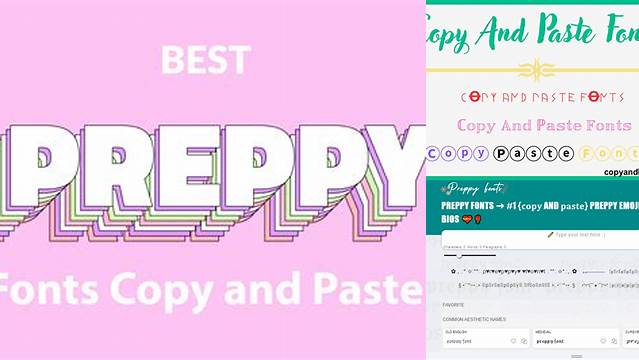
Stylish Preppy Fonts: Copy & Paste Names For Free!
Hey guys! Ever wanted to give your online presence that chic, preppy vibe? One of the easiest ways to do that is by using preppy fonts! Whether it's for your Instagram bio, a cute nickname, or even a personalized gift, the right font can make all the difference. This article will dive deep into the world of preppy fonts, showing you how to copy and paste names and other text with a touch of elegance and style. We'll explore various font styles, tools, and tips to help you achieve that perfect preppy aesthetic. So, let's get started and transform your text into something fabulous! This is especially useful if you are trying to get that classic, sophisticated look that is currently trending. Using the right font is a game-changer when you're aiming for a specific aesthetic, and preppy is all about clean lines, elegance, and a touch of timeless charm. We will also look at how different fonts evoke different emotions and how to choose the font that best represents you or your brand. So, buckle up and let's embark on this stylish journey together!
What are Preppy Fonts?
Preppy fonts are characterized by their classic, clean, and sophisticated appearance. Think timeless elegance and a touch of academic charm. They often feature serifs or clean sans-serif designs that evoke a sense of tradition and refinement. Preppy fonts aren't just about looking good; they're about conveying a specific message of sophistication and style. When you use a preppy font, you're signaling a certain level of attention to detail and a commitment to classic aesthetics. This style is reminiscent of boarding schools, Ivy League universities, and a generally polished, put-together look. These fonts are versatile and can be used in a variety of contexts, from personal branding to event invitations. The essence of a preppy font lies in its ability to blend formality with approachability, making it a perfect choice for anyone looking to add a touch of class to their textual content. For example, a well-chosen serif font can elevate a simple name into a stylish statement, perfect for social media bios or personalized stationery. Whether you're designing a logo or just want to add flair to your everyday messages, understanding what makes a font “preppy” is the first step in achieving the desired effect. The clean lines and classic appeal of these fonts make them a timeless choice for any project.
Popular Preppy Font Styles
When it comes to popular preppy font styles, several stand out. Serif fonts like Times New Roman, Garamond, and Georgia are classics that exude sophistication. These fonts have small decorative strokes at the end of each letter, giving them a formal and traditional look. On the other hand, clean sans-serif fonts such as Helvetica, Arial, and Century Gothic offer a more modern preppy feel, with their simple, unadorned letterforms. Script fonts, especially those with elegant flourishes, can also be preppy when used sparingly and in the right context. Imagine a beautifully scripted name on a wedding invitation or a personalized monogram – that's the power of a preppy script font. Each style brings its unique flavor to the table. Serif fonts are great for conveying a sense of history and tradition, making them ideal for formal occasions and professional settings. Sans-serif fonts provide a cleaner, more contemporary look, perfect for websites, social media, and modern branding. Script fonts, with their flowing lines and calligraphic appeal, add a touch of personality and artistry. Understanding the nuances of each style helps you choose the perfect font for your specific needs. The versatility of preppy fonts means you can adapt them to fit various situations, from casual to formal, ensuring your text always makes the right impression. Knowing the distinctions between these styles will give you a head start in selecting the most appropriate typeface for your preppy-inspired projects.
Tools for Copying and Pasting Preppy Fonts
There are several handy tools available online that allow you to copy and paste preppy fonts easily. Websites like LingoJam, YayText, and FontGet offer a variety of font styles that you can generate and then simply copy and paste into your desired platform. These tools work by using Unicode characters to create different font styles, so you don't need to install any additional software. These tools are incredibly user-friendly, making it a breeze to experiment with different fonts and find the perfect match for your style. Using these resources, you can effortlessly transform plain text into something visually appealing. These tools open up a world of possibilities for customizing your social media profiles, creating eye-catching designs, and adding a unique touch to your digital communications. Imagine typing your name, choosing a font, and instantly seeing it rendered in a stylish, preppy typeface. The convenience of these tools makes them essential for anyone looking to elevate their text aesthetics. Whether you're a social media enthusiast, a graphic designer, or just someone who loves beautiful fonts, these platforms offer a quick and easy way to access a vast library of stylistic options. The best part is that most of these tools are free, providing a cost-effective solution for all your font-related needs. With just a few clicks, you can have access to a stunning array of preppy fonts to enhance your projects and communications.
How to Use Preppy Fonts on Social Media
Social media is a fantastic platform to showcase your preppy style using unique fonts. Platforms like Instagram, Twitter, and Facebook allow you to use copied and pasted fonts in your bio, captions, and posts. To do this, simply generate your desired text using a font generator, copy it, and then paste it into the social media platform. Remember, consistency is key when it comes to branding. Using a consistent font style across your social media profiles helps create a cohesive and professional look. It allows you to build a recognizable brand and makes your profile stand out. Think of your social media as your personal online magazine – the fonts you choose are like the typography in a high-end fashion editorial. Using preppy fonts on social media isn't just about aesthetics; it's about building a brand and telling a story. By carefully selecting fonts that align with your personality and style, you can create a lasting impression on your followers. For instance, if you're running a business, using a sophisticated font in your logo and branding materials can convey professionalism and attention to detail. If you're an individual user, a well-chosen font can enhance your personal brand and make your posts more engaging. It’s a simple yet powerful way to elevate your social media presence and communicate your unique style to the world. Experimenting with different fonts and seeing how they look in various contexts can be a fun and creative process, helping you discover the perfect font for your online persona.
Creating Preppy Names with Stylish Fonts
Creating a preppy name involves more than just choosing a font; it's about selecting a style that reflects your personality and adds a touch of elegance. Experiment with different fonts to see what resonates with you. For instance, a classic script font can make a name feel sophisticated and timeless, while a clean serif font can convey a sense of understated elegance. Preppy names often have a timeless quality, evoking a sense of tradition and refinement. Consider adding subtle embellishments, such as a small heart or star, to further personalize your preppy name. These little details can make a big difference, adding a touch of whimsy and personality. Monograms are also a classic preppy touch, offering a stylish and sophisticated way to display initials. Think of your name as a piece of art – the font you choose is like the frame that completes the picture. Whether you’re creating a name for a social media profile, a personal project, or a gift, the right font can transform it into something special. A well-crafted preppy name can serve as a statement of style and individuality. The key is to find a balance between elegance and personal expression. The process of creating a preppy name should be enjoyable, allowing you to explore different fonts and styles until you discover the perfect match. Remember, your name is an essential part of your identity, and choosing a font that reflects your style can help you make a lasting impression.
Preppy Fonts for Different Platforms
The platform you're using can influence the type of preppy font that looks best. For instance, Instagram bios often look great with script or decorative fonts, while captions might benefit from a more readable serif or sans-serif style. Websites and blogs typically use clean, professional fonts for body text to ensure readability, but headings can be more stylized. Understanding the specific requirements and aesthetics of each platform can help you make informed font choices. Different platforms have varying design sensibilities, and the fonts you use should complement these. On visual platforms like Instagram and Pinterest, fonts are an integral part of your brand's visual identity. A stylish font can capture attention and communicate your aesthetic effectively. For professional platforms like LinkedIn, it's best to stick with classic, clean fonts that convey professionalism and credibility. The key is to consider the context and audience of each platform. A font that works perfectly on a personal blog might not be appropriate for a formal presentation. By tailoring your font choices to the platform, you can ensure that your message is always well-received and effectively communicated. Think of each platform as a different stage, and your font choices are the costumes that help you play the part. Being mindful of these nuances allows you to present your content in the best possible light and maintain a consistent, polished brand across all your online activities.
Font Pairing Tips for a Preppy Look
Font pairing is crucial for achieving a cohesive and visually appealing preppy look. A common strategy is to pair a serif font with a sans-serif font. For example, using a Garamond for headings and an Arial for body text can create a balanced and elegant design. Another tip is to limit your font choices to two or three fonts to avoid a cluttered appearance. Font pairing is an art, and mastering it can significantly elevate your design. The goal is to create harmony and visual interest without overwhelming the reader. Think of it as putting together a stylish outfit – each piece should complement the others, creating a polished and cohesive look. When pairing fonts, consider the contrast and similarity between them. A strong contrast can add visual drama, while subtle similarities create a sense of unity. For instance, pairing a bold serif with a light sans-serif can create a striking visual impact. Alternatively, using two sans-serif fonts with slightly different weights and styles can achieve a more subtle and sophisticated effect. Experimenting with different combinations is key to finding the perfect pairing for your project. Remember, the fonts you choose should work together to enhance your message, not distract from it. A well-chosen font pairing can make your text more readable, engaging, and visually appealing, contributing to a polished and professional overall design.
Generating Preppy Names with Font Generators
Font generators are a fantastic resource for generating preppy names with unique fonts. These tools offer a wide range of font styles that you can easily copy and paste. Simply type your name into the generator, browse the available fonts, and select the one that best suits your style. Most font generators also allow you to preview the text in different sizes and styles, making it easier to find the perfect fit. Using font generators can save you time and effort, especially if you're not familiar with graphic design software. These tools provide a user-friendly way to experiment with different fonts and see how your name looks in various styles. Whether you're creating a name for a social media profile, a personal project, or a special occasion, font generators offer a convenient solution. The ability to preview fonts in real-time allows you to make informed decisions and ensure that your chosen font aligns with your overall aesthetic. Think of font generators as your personal typography playground, where you can explore endless possibilities and discover hidden gems. With just a few clicks, you can transform a simple name into a stylish statement piece. The best part is that many font generators are free, making them accessible to anyone looking to elevate their text aesthetics. By leveraging these tools, you can effortlessly create preppy names that stand out and reflect your unique style.
Copy and Paste Font Tips for Preppy Text
When copying and pasting preppy fonts, there are a few tips to keep in mind. First, ensure that the platform you're pasting into supports Unicode characters, as this is how most font generators create their styles. Some platforms may not display the fonts correctly if they don't support Unicode. Another tip is to test the font in different sizes to ensure readability. A font that looks great in a large size might be difficult to read when it's smaller. Always double-check your text after pasting to ensure that everything looks as intended. The copy and paste process is straightforward, but these small considerations can make a big difference in the final result. By ensuring compatibility and readability, you can avoid common pitfalls and create text that looks polished and professional. Think of it as the final touches on a masterpiece – taking the time to refine the details can elevate your work from good to great. Remember, the goal is to create text that is not only visually appealing but also easy to read and understand. This is especially important in professional settings, where clear communication is essential. By following these tips, you can confidently copy and paste preppy fonts, knowing that your text will look its best on any platform. These simple steps ensure that your preppy style shines through in every message you send.
Preppy Fonts for Logos and Branding
Choosing the right font for your logo and branding is crucial for conveying the right message. Preppy fonts can add a touch of sophistication and elegance to your brand identity. Serif fonts like Garamond and Times New Roman are classic choices for logos, conveying a sense of tradition and reliability. Sans-serif fonts, such as Helvetica and Century Gothic, offer a more modern and clean look, perfect for brands that want to appear contemporary and approachable. Preppy fonts in branding create a lasting impression, making your brand memorable and recognizable. Think of your logo as the visual cornerstone of your brand – the font you choose sets the tone and communicates your values. A well-chosen font can evoke emotions, convey your brand’s personality, and create a connection with your target audience. The key is to select a font that aligns with your brand's identity and resonates with your ideal customers. Whether you’re starting a new business or rebranding an existing one, font selection should be a top priority. The fonts you use in your logo and marketing materials will become synonymous with your brand, so it’s essential to make a thoughtful choice. By carefully considering the nuances of different fonts and how they reflect your brand’s message, you can create a visual identity that stands the test of time. This attention to detail can significantly enhance your brand’s appeal and credibility, helping you establish a strong presence in the marketplace.
Monogram Fonts for Preppy Style
Monograms are a classic element of preppy style, and choosing the right font is essential for creating a sophisticated monogram. Script fonts with elegant flourishes are a popular choice for monograms, adding a touch of luxury and personalization. Serif fonts can also work well, especially for a more traditional and understated look. There are numerous online tools and resources available that allow you to generate monogram designs using various fonts. Monogram fonts add a personal touch to stationary, gifts, and even social media profiles, offering a stylish and timeless way to display initials. Think of a monogram as a personal signature – the font you choose should reflect your individual style and taste. A well-designed monogram can elevate everyday items into something special, adding a touch of sophistication and elegance. Monograms are versatile and can be used in a variety of contexts, from formal invitations to casual accessories. They are a classic symbol of personalization and attention to detail. Whether you’re creating a monogram for yourself or as a gift, the right font can make all the difference. The goal is to create a monogram that is both visually appealing and meaningful, reflecting the personality and style of the individual it represents. By carefully considering the font, size, and placement of your monogram, you can create a timeless and elegant design that will be cherished for years to come. This classic preppy detail can enhance anything from personal stationery to branding materials.
Preppy Fonts in Invitations and Stationery
When it comes to invitations and stationery, preppy fonts can add a touch of elegance and sophistication. Whether you're designing wedding invitations, thank-you notes, or personalized stationery, the right font can set the tone for the occasion. Serif fonts like Garamond and Times New Roman are classic choices for formal events, conveying a sense of tradition and refinement. Script fonts, especially those with elegant flourishes, can also be used sparingly for a more decorative touch. Consider using a combination of fonts to create visual interest, such as pairing a serif font for the main text with a script font for headings or names. Preppy fonts in invitations and stationery evoke a sense of elegance, making your message memorable and impactful. Think of your invitations and stationery as an extension of your personal style – the fonts you choose should reflect your taste and the formality of the occasion. A well-designed invitation can create a lasting impression, setting the stage for a special event. The key is to select fonts that are not only visually appealing but also easy to read. A cluttered or illegible font can detract from your message, so it’s essential to prioritize clarity. By carefully considering the font, layout, and overall design, you can create invitations and stationery that are both beautiful and functional. This attention to detail will help you make a positive impression and ensure that your message is well-received.
Best Preppy Fonts for Online Use
For online use, the best preppy fonts are those that are both stylish and readable on screens. Sans-serif fonts like Helvetica, Arial, and Open Sans are popular choices for websites and blogs, as they offer a clean and modern look that is easy on the eyes. Serif fonts like Georgia and Times New Roman can also work well for body text, especially when paired with a sans-serif font for headings. When choosing fonts for online use, it's important to consider factors like legibility, screen resolution, and font loading speed. The goal is to select fonts that enhance the user experience without slowing down your website or blog. Best preppy fonts for online readability create a seamless reading experience, ensuring that your content is both visually appealing and easy to consume. Think of your website or blog as your online storefront – the fonts you use are like the signage that attracts and guides visitors. A well-chosen font can improve the overall aesthetic of your site, making it more engaging and inviting. The key is to prioritize readability and ensure that your fonts are consistent across all devices and browsers. This attention to detail can significantly enhance your online presence, helping you create a positive impression on your audience. By carefully considering the nuances of different fonts and how they perform online, you can create a website or blog that is both beautiful and user-friendly.
Preppy Fonts and Color Combinations
The colors you use alongside your preppy fonts can significantly impact the overall aesthetic. Classic color combinations like navy and white, pink and green, and pastels are often associated with preppy style. When choosing colors, consider the font's weight and style. A bold font might pair well with a soft color palette, while a delicate script font might look best against a darker background. Preppy fonts and complementary colors create a cohesive visual impact, enhancing the elegance and sophistication of your designs. Think of your color palette as the backdrop for your fonts – the colors you choose should complement the fonts and enhance their impact. A well-chosen color combination can evoke emotions, convey your message effectively, and create a lasting impression. The key is to select colors that align with your overall aesthetic and resonate with your target audience. Experimenting with different color combinations can help you discover the perfect palette for your project. Remember, the goal is to create a visually harmonious design that is both appealing and effective. By carefully considering the interplay between fonts and colors, you can create designs that are truly memorable and impactful. This attention to detail will help you communicate your message effectively and make a positive impression on your audience.
Preppy Fonts for Business Cards
Business cards are a crucial part of professional branding, and choosing the right font is essential for making a positive impression. Preppy fonts can add a touch of sophistication and elegance to your business cards, conveying professionalism and attention to detail. Serif fonts like Garamond and Times New Roman are classic choices, while sans-serif fonts like Helvetica and Century Gothic offer a more modern look. Consider using a font that is both stylish and readable, as clarity is crucial for business cards. The goal is to create a business card that is visually appealing and conveys your brand's message effectively. Preppy fonts on business cards create a lasting impression, ensuring that your card stands out and reflects your professional style. Think of your business card as a miniature billboard – the fonts you choose should be eye-catching and easy to read. A well-designed business card can serve as a powerful marketing tool, helping you make connections and build relationships. The key is to select fonts that align with your brand's identity and resonate with your target audience. Keep your business card simple and uncluttered, focusing on essential information such as your name, title, contact details, and company logo. By carefully considering the font, layout, and overall design, you can create a business card that is both functional and stylish. This attention to detail will help you make a positive impression and ensure that your business card effectively represents your brand.
Creating Preppy Quotes with Fonts
Preppy fonts can transform ordinary quotes into stylish statements. Whether you're sharing inspirational messages on social media or creating personalized prints, the right font can elevate your quotes. Script fonts are ideal for adding a touch of elegance and personality, while serif fonts can convey a sense of tradition and sophistication. Consider using a combination of fonts to highlight different parts of the quote, such as a script font for the main text and a serif font for the attribution. The goal is to create a visually appealing quote that resonates with your audience. Preppy quotes with stylish fonts create a visual impact, making your message memorable and shareable. Think of your quotes as pieces of art – the fonts you choose are like the frame that completes the picture. A well-designed quote can inspire, motivate, and connect with others, making it a valuable tool for communication and self-expression. The key is to select fonts that complement the message and evoke the desired emotion. Experiment with different font styles, sizes, and colors to create a quote that is truly unique and impactful. By carefully considering the font, layout, and overall design, you can transform your quotes into visual masterpieces that leave a lasting impression.
Preppy Font Trends in 2024
Staying up-to-date with font trends can help you keep your designs fresh and modern. In 2024, we're seeing a resurgence of classic serif fonts paired with clean sans-serif fonts for a balanced and sophisticated look. Bold, statement fonts are also gaining popularity, especially for headings and logos. Monograms and script fonts continue to be a classic preppy staple, but they're being used in more creative and contemporary ways. Keeping an eye on these preppy font trends in 2024 ensures your designs remain stylish and relevant. Think of font trends as the fashion runways of the design world – staying informed can help you create designs that are both current and timeless. A well-chosen font can breathe new life into your projects, making them more engaging and visually appealing. The key is to experiment with different trends and incorporate them into your designs in a way that aligns with your personal style and brand identity. Don't be afraid to try new things, but always prioritize readability and clarity. By staying informed and adaptable, you can create designs that stand out from the crowd and make a lasting impression. This forward-thinking approach will ensure that your designs remain fresh, impactful, and aligned with the latest aesthetic preferences.
Where to Find Free Preppy Fonts
Finding free preppy fonts is easier than you might think! Several websites offer a wide selection of fonts that you can download and use for personal and commercial projects. DaFont, Google Fonts, and Font Squirrel are popular resources for free fonts, with many preppy styles available. Always check the licensing terms before using a font to ensure that it's suitable for your intended purpose. Taking advantage of these resources for free preppy fonts allows you to experiment with different styles without breaking the bank. Think of these font libraries as your treasure trove of typography – exploring them can lead to exciting discoveries and inspire your creativity. A well-chosen font can elevate your designs, making them more professional and visually appealing. The key is to be patient and persistent, as the perfect font may be hidden among many options. Don't be afraid to browse and experiment until you find the fonts that best suit your needs. By leveraging these free resources, you can create stunning designs without incurring significant costs. This accessibility empowers designers of all levels to explore their creativity and produce high-quality work. These platforms make it possible to achieve a polished, preppy look without compromising your budget.
Using Preppy Fonts for Wedding Designs
For wedding designs, preppy fonts can add a touch of timeless elegance and sophistication. Invitations, save-the-dates, and other wedding materials often benefit from classic serif fonts or elegant script fonts. Consider using a combination of fonts to create visual interest, such as pairing a serif font for the main text with a script font for names or headings. The goal is to create wedding designs that are both beautiful and memorable. Preppy fonts in wedding designs create an atmosphere of timeless elegance, making your special day even more memorable. Think of your wedding designs as a reflection of your personal style and the romance of the occasion – the fonts you choose should set the tone and create a sense of anticipation. A well-designed wedding suite can make a lasting impression on your guests, so it's essential to pay attention to every detail. The key is to select fonts that complement the overall aesthetic of your wedding, whether it's classic and formal or modern and chic. Consider the colors, textures, and other design elements to create a cohesive and harmonious look. By carefully considering the font, layout, and overall design, you can create wedding materials that are as beautiful and unique as your love story.
How to Install Preppy Fonts on Your Computer
Installing preppy fonts on your computer is a straightforward process. First, download the font files from a reputable source. Most fonts come in a .ttf or .otf format. Once downloaded, simply double-click the font file and click the “Install” button. On a Mac, you can also drag the font files into the Font Book application. After installation, the font will be available for use in your design software and other applications. Learning how to install preppy fonts ensures you can use your favorite styles across all your projects. Think of installing fonts as adding new tools to your design toolkit – each font is a unique instrument that can help you create beautiful and effective designs. A well-organized font library can streamline your workflow and enhance your creativity. The key is to ensure that your fonts are properly installed and accessible in your design software. If you encounter any issues, consult your software's documentation or online resources for troubleshooting tips. By following these simple steps, you can easily expand your font collection and unleash your design potential. This straightforward process empowers you to experiment with different styles and find the perfect fonts for your projects, ensuring a polished and professional outcome.
Creating a Preppy Aesthetic with Typography
Creating a preppy aesthetic is about more than just choosing the right fonts; it's about using typography to convey a specific style and mood. Preppy typography often features classic serif fonts, clean sans-serif fonts, and elegant script fonts. Pay attention to details like font size, spacing, and alignment to create a polished and sophisticated look. Consider using a limited color palette and incorporating traditional preppy elements, such as monograms and nautical motifs. Mastering creating a preppy aesthetic with typography ensures your designs evoke the desired timeless charm and elegance. Think of typography as the voice of your design – the fonts you choose and how you use them can communicate your message effectively and set the tone for your entire project. A well-executed typography strategy can elevate your designs, making them more engaging and visually appealing. The key is to understand the nuances of different fonts and how they can be used to create a specific mood or style. Experiment with different combinations and techniques until you find the perfect formula for your preppy aesthetic. By carefully considering every aspect of typography, you can create designs that are both beautiful and effective, capturing the essence of the preppy style. This comprehensive approach will help you achieve a cohesive and impactful visual identity.
Preppy Fonts for Web Design
In web design, preppy fonts can create a sophisticated and timeless look. Clean sans-serif fonts like Open Sans and Lato are excellent choices for body text, as they are easy to read on screens. For headings and other design elements, consider using a classic serif font or a script font to add visual interest. Pay attention to font size, line height, and spacing to ensure readability and a professional appearance. Optimizing preppy fonts for web design ensures a seamless user experience and a polished online presence. Think of your website as your online storefront – the fonts you choose are like the signage that attracts and guides visitors. A well-designed website can make a lasting impression, so it's essential to pay attention to every detail. The key is to select fonts that are not only visually appealing but also functional and accessible. Consider the overall layout and design of your website to create a cohesive and harmonious look. By carefully considering the font, size, and spacing, you can create a website that is both beautiful and user-friendly, effectively communicating your message and engaging your audience.
Combining Preppy Fonts in Design Projects
Combining preppy fonts effectively in design projects requires a strategic approach. A general rule of thumb is to pair a serif font with a sans-serif font for contrast and balance. For instance, you might use a Garamond for headings and an Open Sans for body text. Limit the number of fonts you use in a single project to two or three to avoid a cluttered look. Think about the purpose and style of your project when choosing font combinations. Learning combining preppy fonts in design projects ensures a cohesive and professional visual outcome. Think of font combinations as a harmonious duet – the fonts should complement each other, creating a balanced and visually appealing composition. A well-chosen font pairing can elevate your designs, making them more engaging and professional. The key is to experiment with different combinations and see what works best for your specific project. Consider the hierarchy of information and use font styles to guide the reader's eye. By carefully selecting and combining fonts, you can create designs that are both beautiful and effective, communicating your message clearly and engaging your audience.
Preppy Font Styles for Invitations
When designing invitations, preppy font styles can set a sophisticated tone. Classic serif fonts like Times New Roman and Garamond are always a safe bet for formal events, conveying elegance and tradition. Script fonts can add a touch of personality, but use them sparingly, perhaps for names or headings. For a more modern preppy look, consider a clean sans-serif font like Century Gothic. Your choice of preppy font styles for invitations sets the tone for the event, creating anticipation and excitement. Think of your invitations as a preview of the event itself – the fonts you choose should reflect the formality and style of the occasion. A well-designed invitation can make a lasting impression on your guests, so it's essential to pay attention to every detail. The key is to select fonts that are not only visually appealing but also easy to read. Consider the overall design of the invitation and choose fonts that complement the color scheme and layout. By carefully considering the font, layout, and overall design, you can create invitations that are both beautiful and memorable, setting the stage for a successful event.
Preppy Fonts for Social Media Graphics
Social media graphics can benefit from preppy fonts that are both stylish and readable. Clean sans-serif fonts are great for body text and captions, while serif or script fonts can add a touch of flair to headings or logos. Ensure your fonts are legible on mobile devices, as most social media users browse on their phones. Use contrasting colors to make your text stand out against the background. Choosing the right preppy fonts for social media graphics enhances engagement and strengthens your brand's visual identity. Think of your social media graphics as mini-advertisements for your brand – the fonts you choose should capture attention and communicate your message effectively. A well-designed social media graphic can increase engagement and help you build a stronger online presence. The key is to select fonts that are not only visually appealing but also optimized for social media platforms. Consider the overall aesthetic of your brand and choose fonts that align with your brand's identity. By carefully considering the font, colors, and layout, you can create social media graphics that are both eye-catching and effective.
How to Pair Preppy Fonts Like a Pro
Pairing preppy fonts like a pro involves understanding the nuances of typography. A classic approach is to combine a serif font with a sans-serif font, creating visual contrast and balance. Choose fonts with complementary personalities – for example, a formal serif font paired with a modern sans-serif. Limit your palette to two or three fonts per project for a cohesive look. Mastering how to pair preppy fonts allows you to create visually harmonious designs that stand out. Think of font pairing as composing a musical score – the fonts should harmonize, creating a balanced and pleasing visual rhythm. A well-executed font pairing can elevate your designs, making them more professional and impactful. The key is to experiment with different combinations and see what works best for your specific project. Consider the hierarchy of information and use font styles to guide the reader's eye. By carefully selecting and combining fonts, you can create designs that are both beautiful and effective, communicating your message clearly and engaging your audience.
Best Free Preppy Fonts for Designers
Designers on a budget will appreciate the abundance of free preppy fonts available online. Google Fonts offers a fantastic selection of free fonts, including classic serif fonts like Merriweather and Playfair Display, as well as clean sans-serif fonts like Open Sans and Lato. DaFont and Font Squirrel are other excellent resources for free fonts, with a wide range of preppy styles to choose from. Utilizing the best free preppy fonts for designers empowers creative projects without financial constraints. Think of these free font libraries as your secret weapon for creating stunning designs without breaking the bank. A well-stocked font library can spark creativity and give you the freedom to experiment with different styles. The key is to explore your options and discover hidden gems that perfectly fit your project's needs. Always check the licensing terms to ensure the font is suitable for your intended use. By leveraging these free resources, you can elevate your designs, make a positive impression, and create a lasting impact.
Preppy Font Generators Online
Preppy font generators online make it easy to create stylish text for social media, invitations, and more. These tools allow you to type in your text and see it rendered in various preppy font styles. Many generators also offer customization options, such as font size, color, and background. Popular font generators include LingoJam, YayText, and FontGet. Using preppy font generators online simplifies creating stylish text for various design needs. Think of these generators as your personal typography assistant, providing instant access to a variety of fonts and styles. A well-chosen font can transform ordinary text into a visual statement, adding personality and flair to your projects. The key is to experiment with different fonts and styles until you find the perfect match for your message. Many generators offer previews, allowing you to see how the text will look before you copy and paste it. By leveraging these tools, you can effortlessly create eye-catching text that captures attention and communicates your message effectively.
Adding Flair with Decorative Preppy Fonts
Decorative preppy fonts can add a touch of personality and flair to your designs. Script fonts, with their elegant flourishes, are a classic choice for adding a touch of sophistication. Monograms, with their timeless appeal, are another excellent way to incorporate decorative elements. Use decorative fonts sparingly, perhaps for headings or names, to avoid overwhelming the design. Master the art of adding flair with decorative preppy fonts to elevate your designs with personality and elegance. Think of decorative fonts as the finishing touches that add sparkle and charm to your overall composition. A well-placed decorative font can create a focal point, adding visual interest and making your design more memorable. The key is to use decorative fonts strategically, balancing them with simpler fonts for readability and clarity. Consider the overall aesthetic of your project and choose decorative fonts that complement the other elements. By carefully selecting and incorporating decorative fonts, you can create designs that are both stylish and effective, capturing attention and communicating your message with flair.
Serif vs. Sans-Serif: Preppy Font Choices
The serif vs. sans-serif debate is central to preppy font choices. Serif fonts, with their small decorative strokes, convey a sense of tradition and elegance, making them ideal for formal occasions. Sans-serif fonts, with their clean lines, offer a more modern and approachable look. Consider the overall tone of your project when choosing between serif and sans-serif fonts. Understanding the nuances of serif vs. sans-serif fonts informs effective preppy font choices for various design contexts. Think of serif and sans-serif fonts as two distinct personalities – serif fonts are like the well-dressed professional, while sans-serif fonts are like the effortlessly chic friend. A well-balanced design often incorporates both serif and sans-serif fonts, creating visual interest and enhancing readability. The key is to understand the strengths of each style and choose fonts that complement your project's goals. Serif fonts often work well for headings and body text in print, while sans-serif fonts excel in digital environments. By carefully considering the context and audience, you can make informed decisions about serif and sans-serif fonts, creating designs that are both visually appealing and effective.